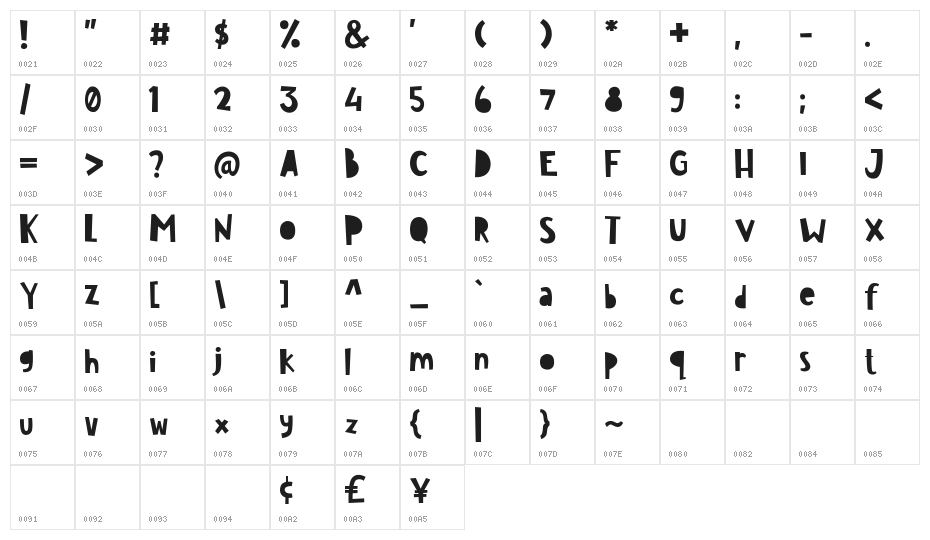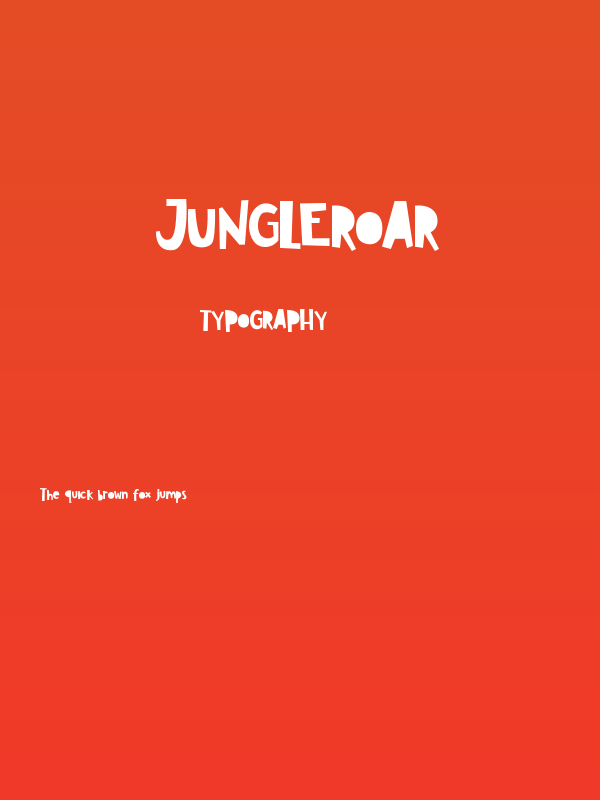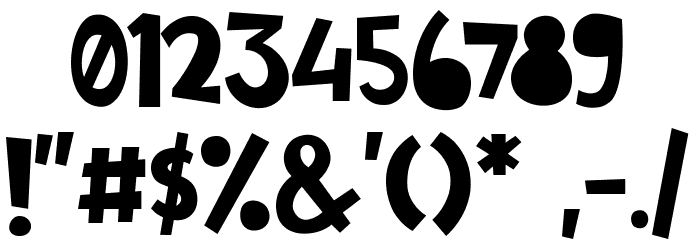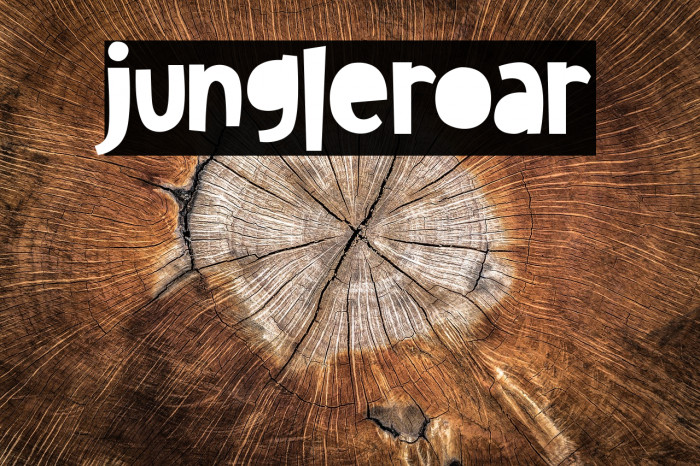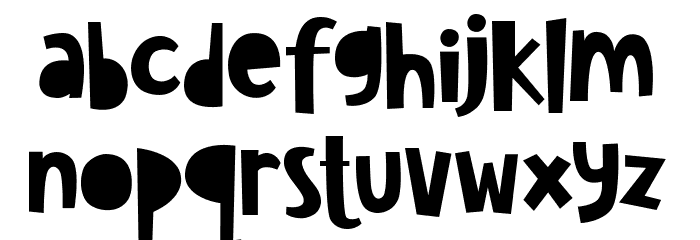
jungleroar Font
jungleroar Description
This font features a bold and playful design with exaggerated curves and angles, giving it a lively and energetic appearance. The uppercase letters are particularly striking, with varying widths and unique shapes that add a sense of movement and fun. The lowercase letters maintain this playful style, with rounded forms and a slightly irregular baseline that enhances the whimsical feel. Numbers and special characters are equally bold and dynamic, making them stand out in any context. This font's overall style is both modern and decorative, perfect for capturing attention.
| Overall Style | Playful, Modern, Decorative |
| Use Case | Headlines, Posters, Branding |
| Proposed Projects | Ideal for children's books, playful branding, posters, and any project needing a fun and energetic typeface. |